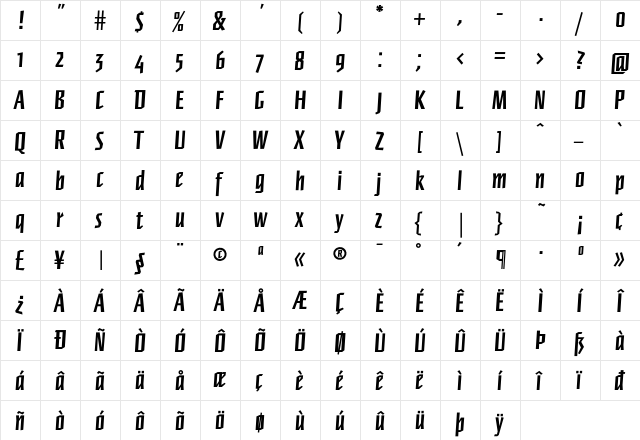
Newberlin Bold
Design Context for Newberlin Typeface
Newberlin is a composed and adaptable typeface that performs quietly and consistently across a wide range of design contexts. Its bold stroke weight gives it real presence on the page.